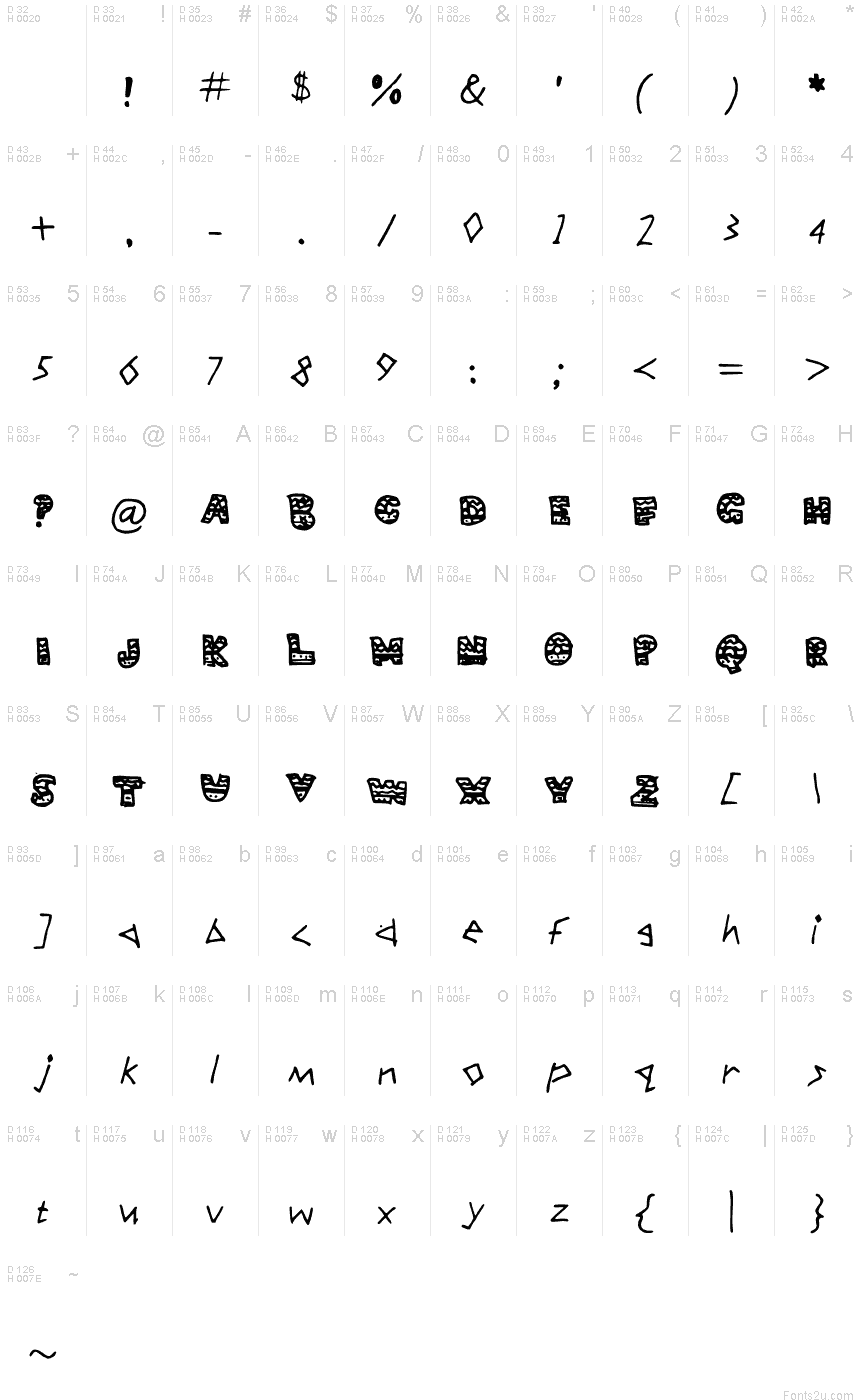
aztec
Aztec font is a free decorative typeface that feels like it’s been sketched in thick marker straight onto stone. Loose, angular strokes and slightly uneven curves give it a raw, hand-crafted energy, as if each word were part of a mural or temple carving. The letters stay bold and legible, but they carry a rugged rhythm that instantly suggests mystery, adventure, and ancient stories.
Using Aztec, this free font really shines on game titles, themed posters, escape-room branding, book covers, party invitations, and YouTube thumbnails that need a bold, exploratory vibe. The generous spacing keeps it readable even at larger sizes, making short phrases and titles hit with impact. Try pairing Aztec with a clean geometric sans for body text to keep the wild, carved look focused on your main headlines.